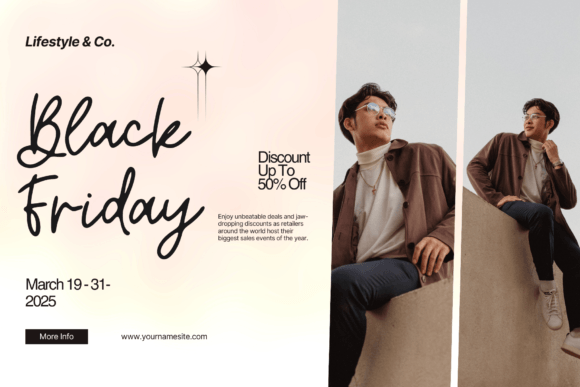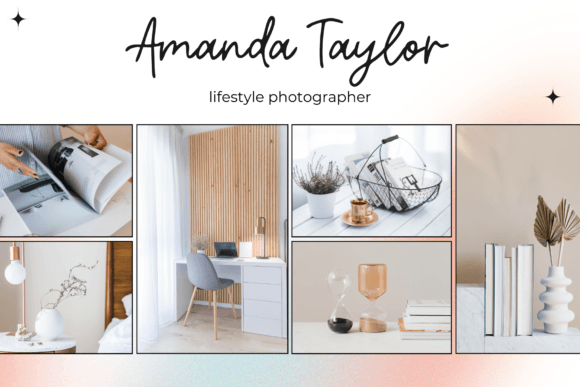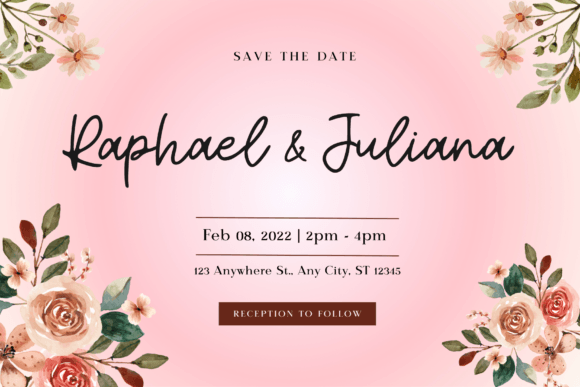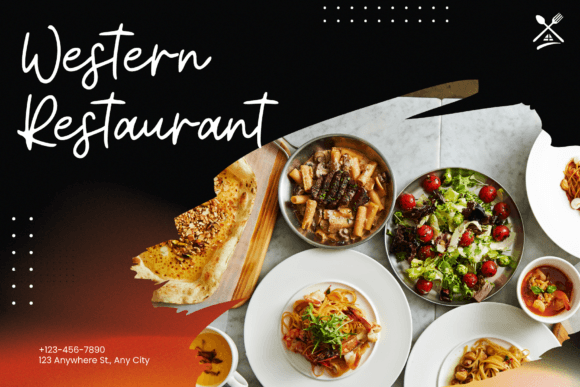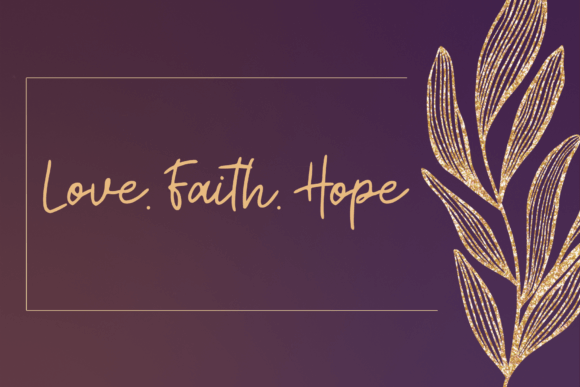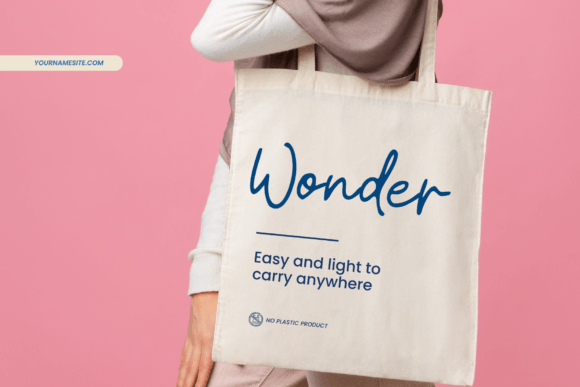
Introducing Anadea Font: Elevate Your Designs with Elegance and Charm
In the world of typography, few fonts manage to capture the essence of elegance and charm as effortlessly as Anadea. This stylish handwritten script font is a masterpiece of design, boasting flowing, graceful curves that instantly elevate any project to new heights of sophistication. Whether you’re working on invitations, logos, branding, or any other design endeavor, Anadea is the perfect choice for those seeking to add a personal and refined touch.
The Beauty of Anadea: A Closer Look
Anadea’s beauty lies in its delicate strokes, which bring a sense of warmth and creativity to your projects. The font’s elegant curves and fluid lines create a sense of movement, making it perfect for designs that require a touch of dynamism. The subtle variations in line width and the gentle connections between letters add to the font’s charm, creating a truly unique and captivating visual experience.
Anadea’s versatility makes it an excellent choice for a wide range of design applications. Here are just a few examples of how you can use this stunning font:
- Invitations: Add a touch of elegance to your wedding invitations, birthday party invites, or any other special occasion with Anadea’s flowing script.
- Logos: Create a lasting impression with a custom logo designed using Anadea. The font’s sophistication and charm make it perfect for businesses seeking to establish a refined brand identity.
- Branding: Use Anadea to create a cohesive brand image that exudes elegance and refinement. From business cards to packaging, this font is sure to make your brand stand out.
- Stationery: Add a personal touch to your stationery, including notebooks, journals, and letters, with Anadea’s beautiful script.
Why Choose Anadea?
With so many fonts available, why choose Anadea? Here are just a few reasons why designers and crafters alike are falling in love with this stunning font:
- Unique and distinctive: Anadea’s elegant curves and flowing lines make it a truly unique and distinctive font that will set your designs apart from the crowd.
- Easy to read: Despite its ornate appearance, Anadea is surprisingly easy to read, making it perfect for designs that require a touch of sophistication without sacrificing legibility.
- Highly versatile: Anadea can be used for a wide range of design applications, from invitations and logos to branding and stationery.
- Timeless appeal: Unlike trendy fonts that quickly go out of style, Anadea’s classic elegance ensures it will remain a timeless choice for years to come.
Tips for Using Anadea Effectively
To get the most out of Anadea, here are a few tips to keep in mind:
- Use it sparingly: Anadea’s elegance can be overwhelming if overused. Use it sparingly to create a lasting impression.
- Pair it with complementary fonts: Combine Anadea with complementary fonts to create a visually appealing contrast.
- Experiment with colors: Anadea looks stunning in a variety of colors. Experiment with different hues to find the perfect match for your design.
In conclusion, Anadea is a truly exceptional font that offers a unique blend of elegance, charm, and versatility. Whether you’re a designer, crafter, or simply someone who appreciates beautiful typography, Anadea is a must-have font that will elevate your designs to new heights of sophistication. With its delicate strokes, flowing curves, and timeless appeal, Anadea is the perfect choice for anyone seeking to add a personal and refined touch to their projects.